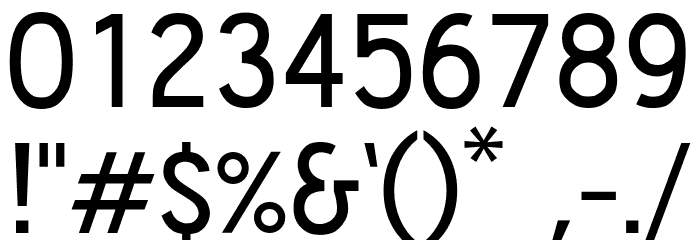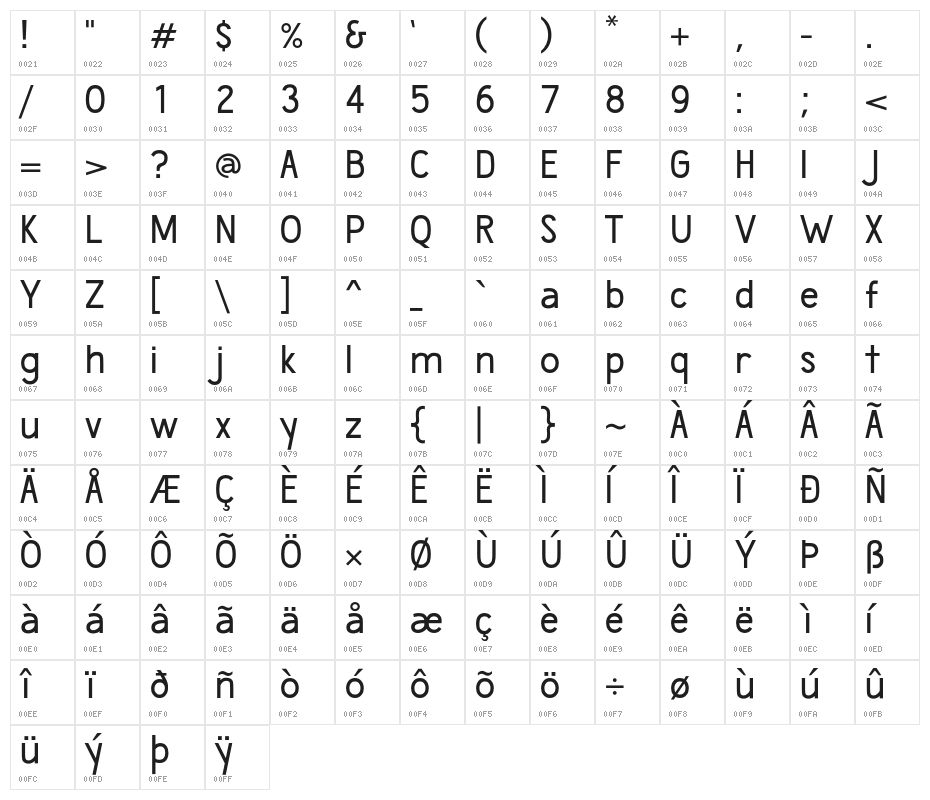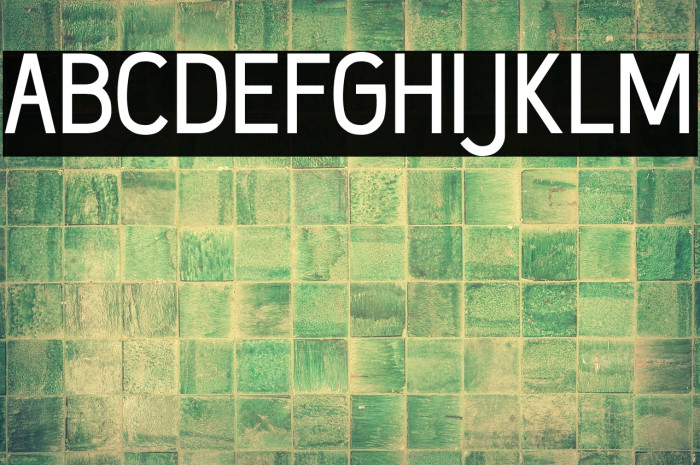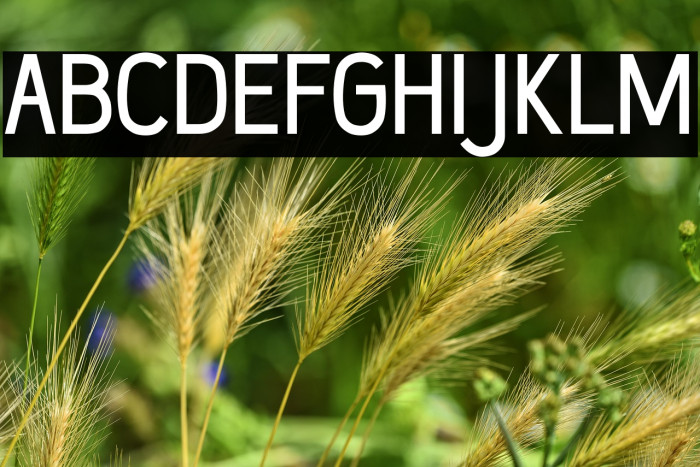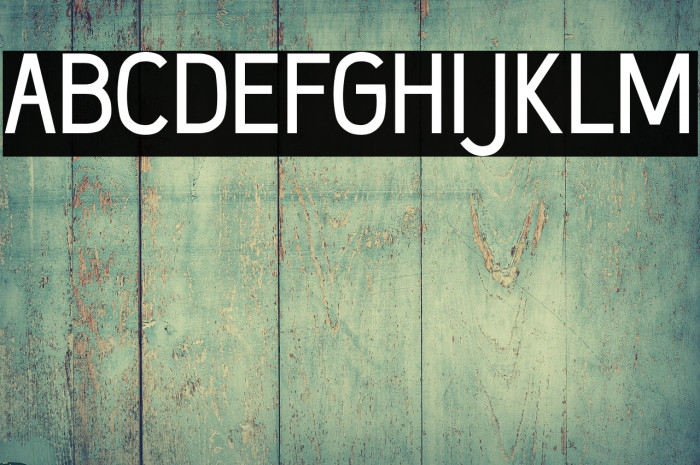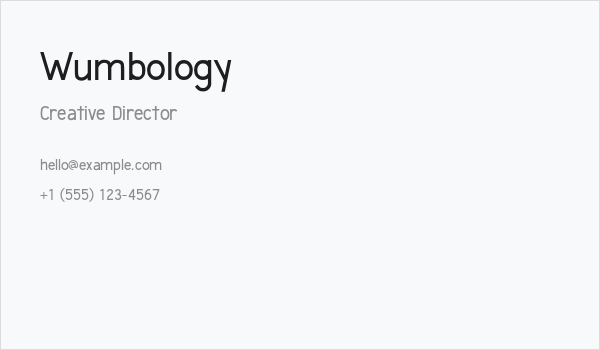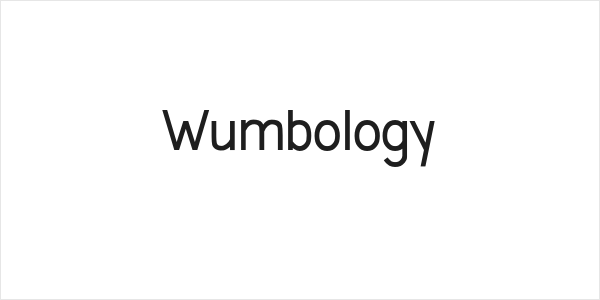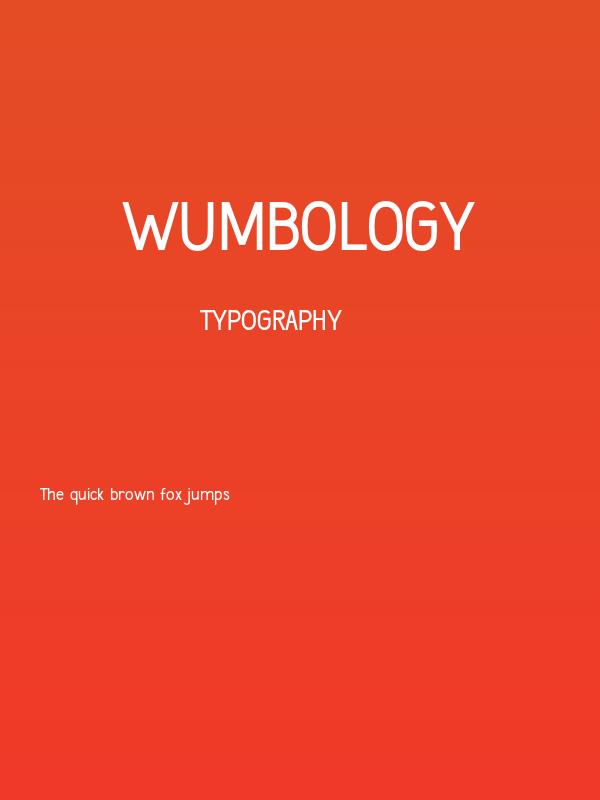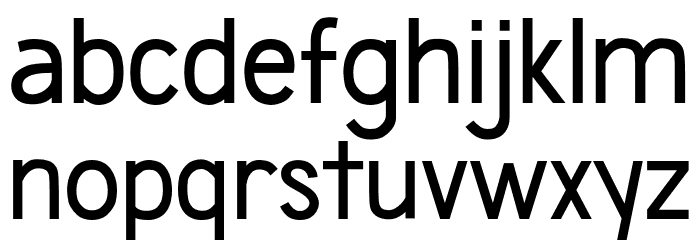
Wumbology Font
Wumbology Description
This font features a clean and modern sans-serif design, characterized by its uniform stroke width and geometric shapes. The uppercase letters are tall and slightly condensed, giving a sleek appearance, while the lowercase letters maintain a consistent height and roundness, ensuring readability. The numerals are proportional and align well with the overall style, making them suitable for both text and numerical data. The special characters are distinct and well-integrated, enhancing the font's versatility. Its simplicity and clarity make it ideal for a wide range of applications, from digital interfaces to print media.
| Proposed Projects | Ideal for branding, web design, user interfaces, and print materials. |